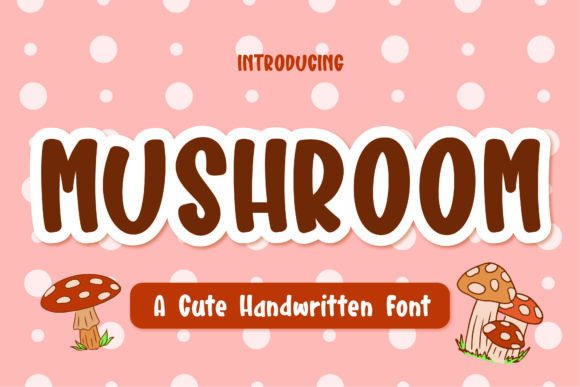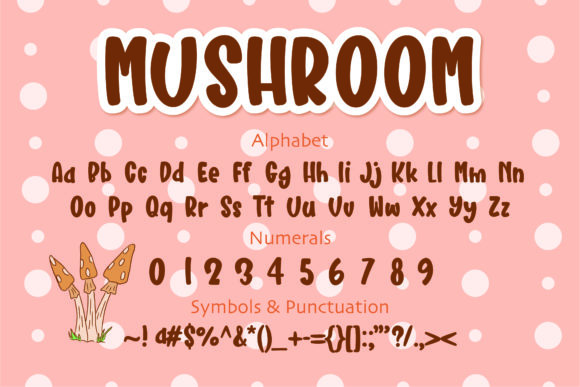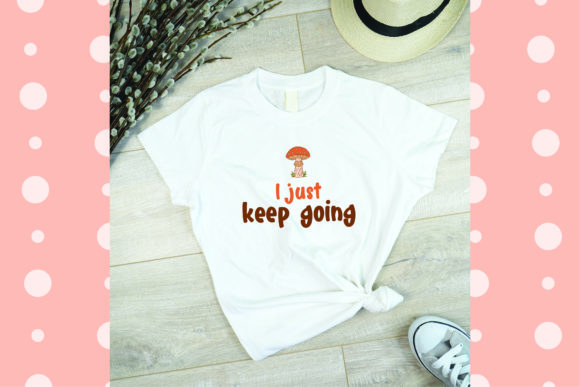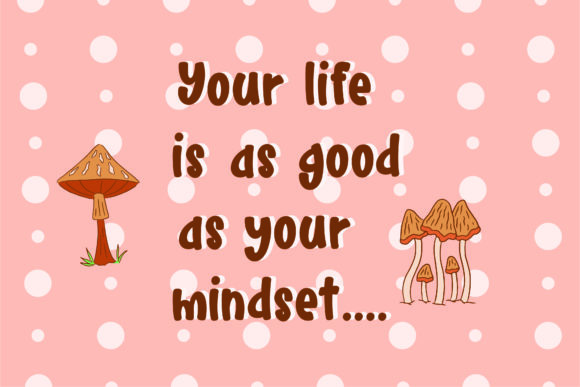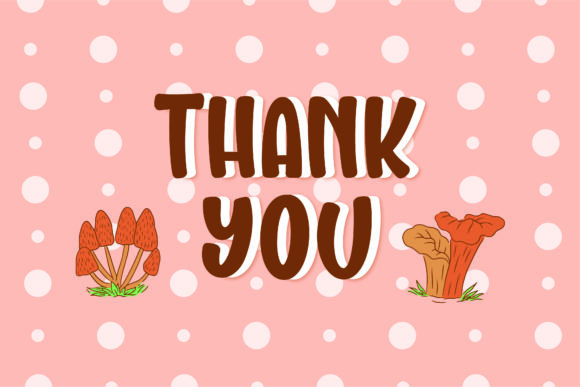
Mushroom Font
About Mushroom Font
Mushroom is a cool, adaptable and friendly handwritten font. It looks as if it was the handwriting of a child, and as a result, this font will be the perfect choice for writing letters to Santa or adding a touch of innocence to your creations.